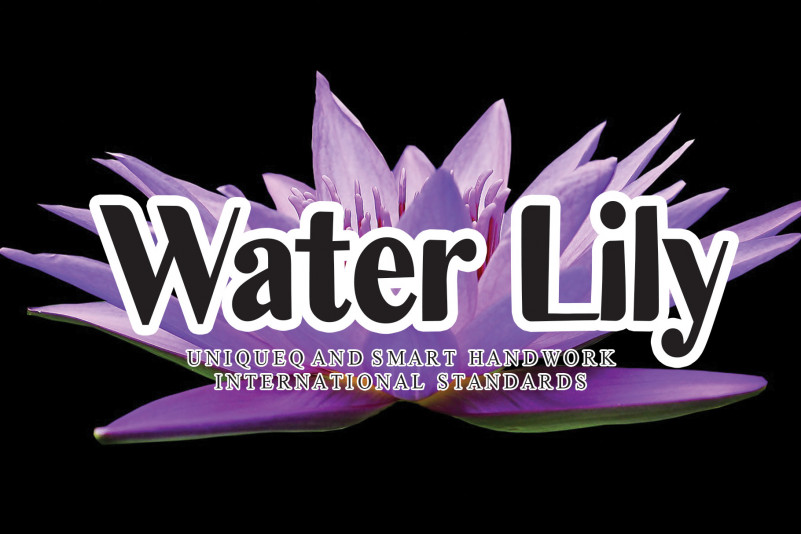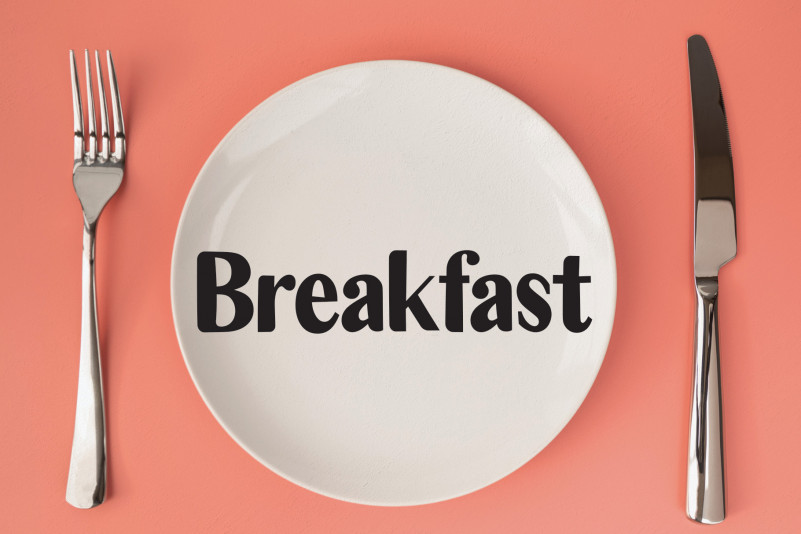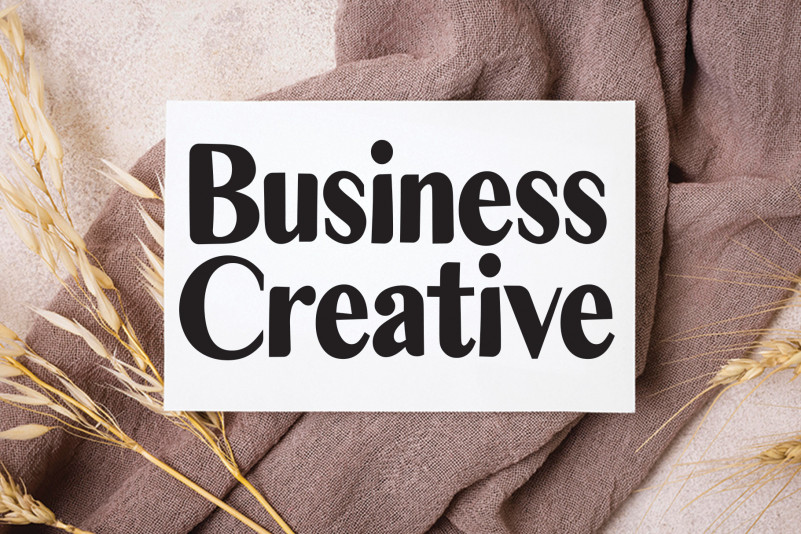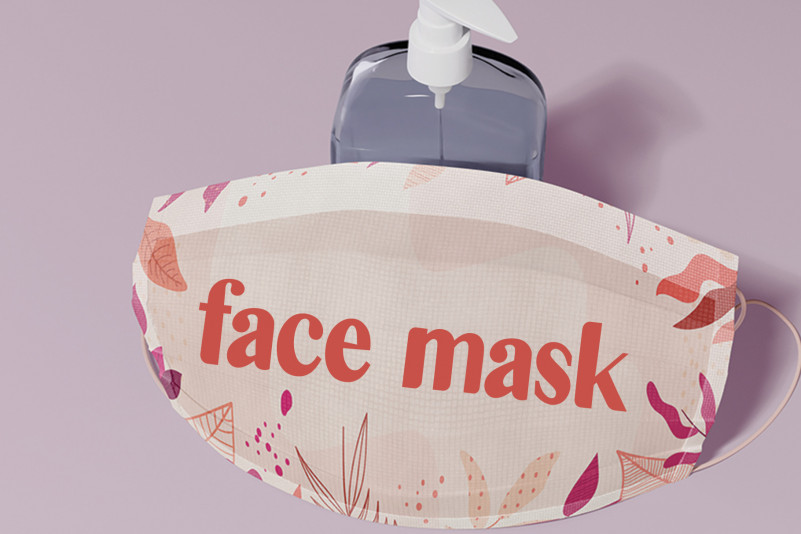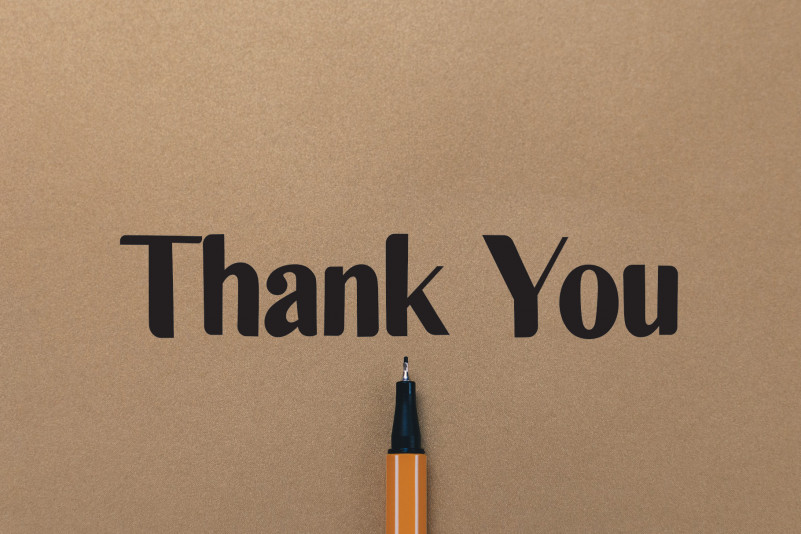
Water Lily Display Font
Water Lily Display Font is a simple and neat serif font. Natural and casual, this font will perfectly fit a variety of design ideas!